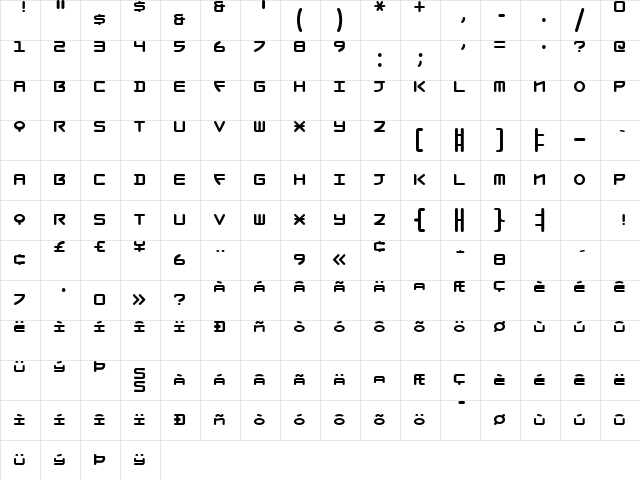
SeoulStacking Regular
Design Context for SeoulStacking Typeface
SeoulStacking is a composed and adaptable typeface that performs quietly and consistently across a wide range of design contexts.